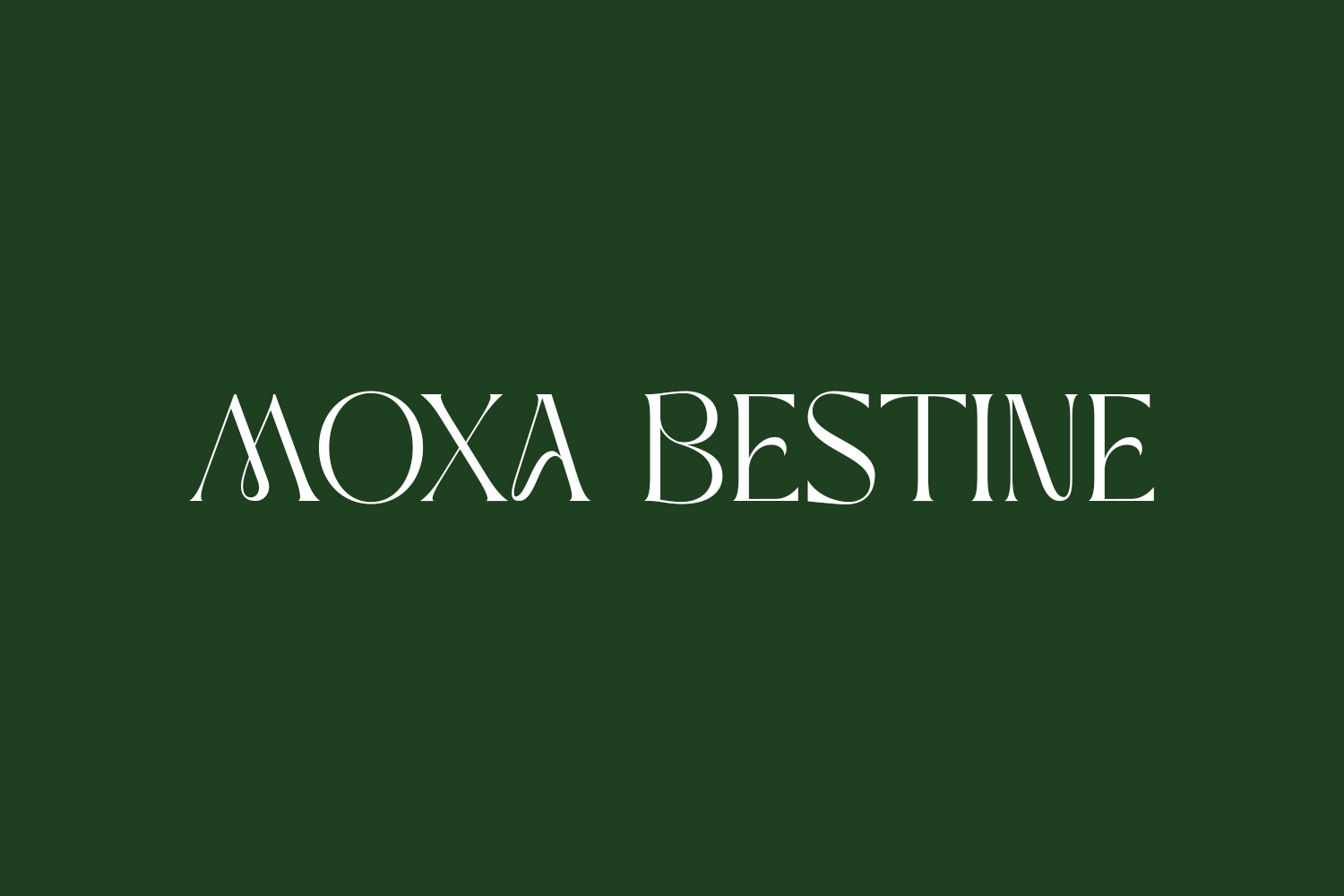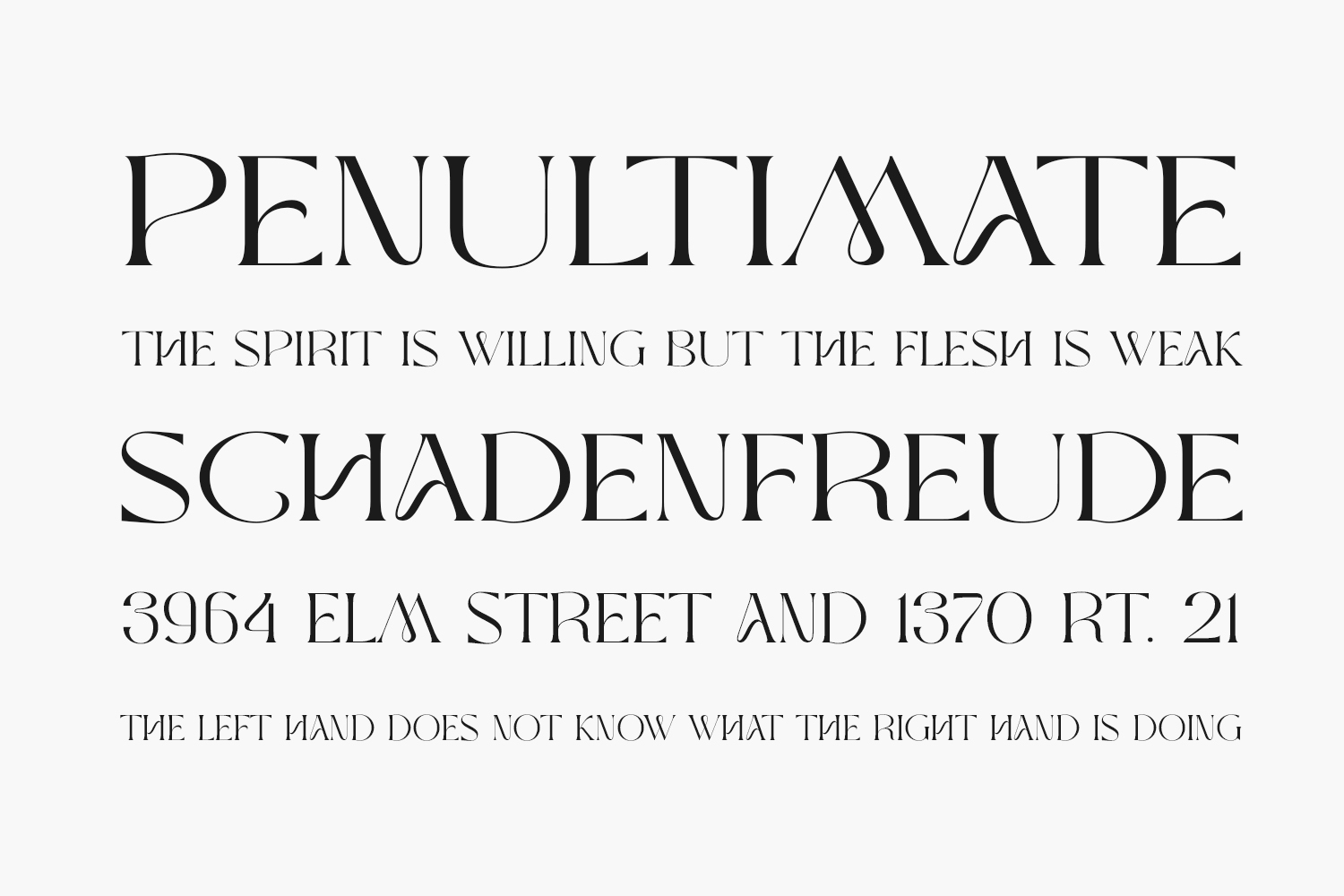
Introducing the Moxa Bestine Free Font Family, a sophisticated pairing of elegant serif and modern handwritten script. With its unique curves and smooth flows, this duo brings a luxurious touch to various design projects including websites, logos, brand identities, social media quotes, wedding stationery, and more. Versatile enough for wordmark logos, mastheads, pull quotes, and monograms, it effortlessly conveys both feminine and masculine qualities. Elevate your projects with this beautiful font, captivating your audience and making your promotions truly stand out. Download the font for free if you need it for personal use or purchase the full version for commercial use.